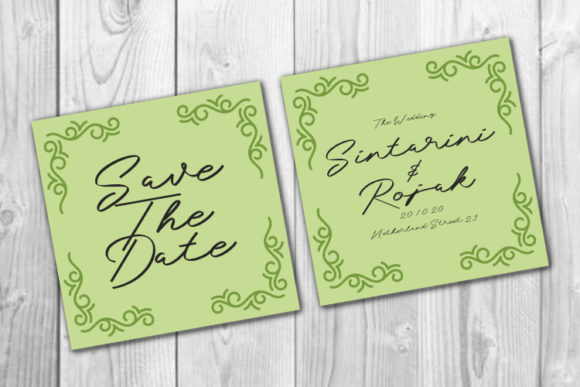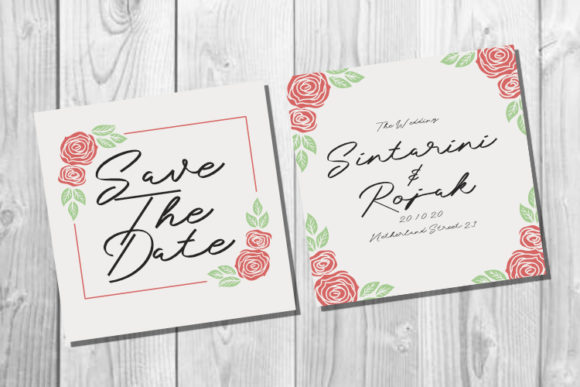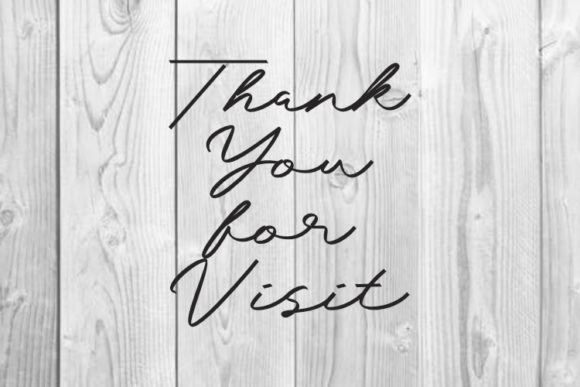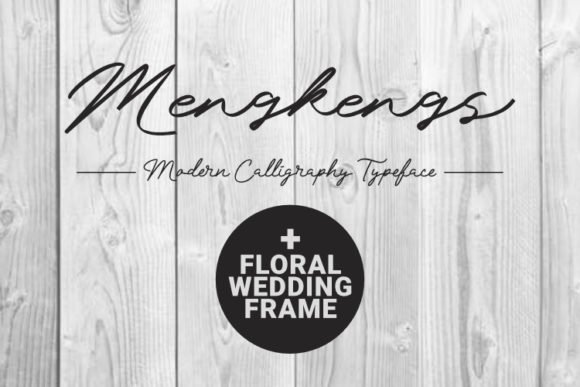
Introduction to Mengkengs Font
The Mengkengs is a modern handwritten font.
It has a stylish handwritten touch which is perfect for adding a natural and classy look to your designs It’s perfect for many different project such as logos & branding, invitation, stationery, wedding designs, social media designs, and much more.
Key Features of Mengkengs Font
Why Choose Mengkengs Font?
Mengkengs Font offers exceptional quality and versatility, making it a valuable addition to your design toolkit. Whether you’re creating for personal projects or commercial use, Mengkengs Font delivers professional results.